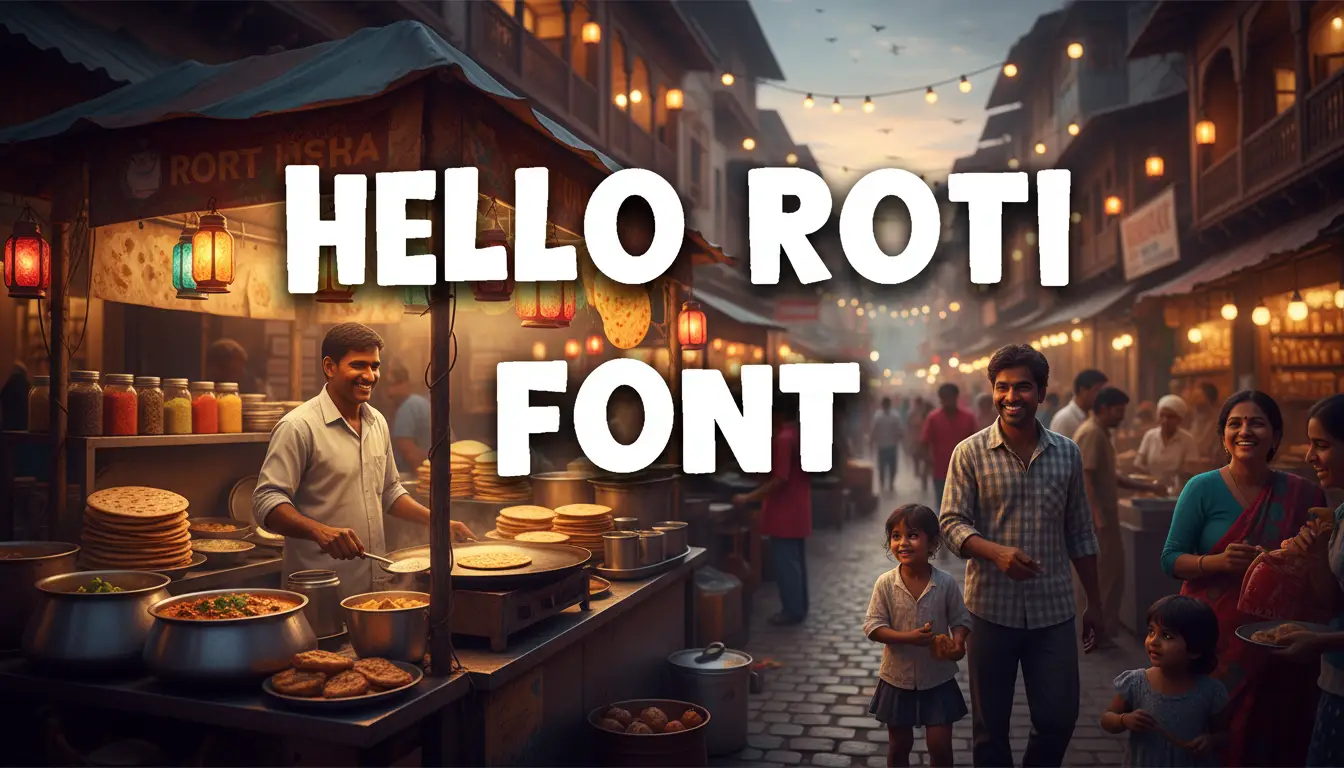
Hello Roti Font
Hello Roti
Hello Roti is a fancy font made by Khurasan & Jalembe. Bold and full of character, it's built to stand out rather than blend in. You can download it for free and test it with your own words in the preview above.
You get every letter from A to Z in both cases and all the numbers from 0 to 9, which means Hello Roti can handle full sentences, dates and prices. Common punctuation such as &, !, ? and @ is included as well. It doesn't include accented letters such as é or ñ, which makes it an English-only font.
Designers usually reach for fonts like Hello Roti when they're making posters, logos and eye-catching headlines. Use it for one standout word or headline and let simpler fonts handle the rest.
No. Hello Roti has no accented letters such as é, ñ or ü, so it's best for English text.